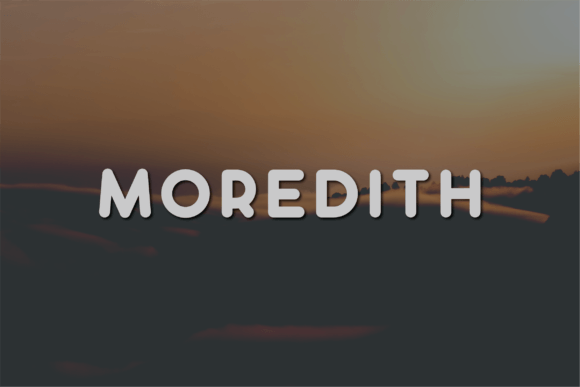
Journey through a realm of typographic wonder with Moredith, the font that captivates and enchants. Immerse yourself in its graceful curves and crisp lines, a symphony of elegance and charm. Moredith's sans serif architecture exudes a timeless sophistication, effortlessly blending tradition with contemporary flair.
Picture your designs adorned with Moredith's allure, be it logos that command attention or wedding invitations that whisper romance. Witness how effortlessly it elevates quotes, advertisements, and print, transforming them into works of art. Moredith graces magazines with its refined presence, leaving an indelible mark on every page.
Moredith is a font that is a perfect fusion of versatility and distinctiveness. Its carefully crafted letterforms dance across the screen, captivating audiences with their rhythmic flow. Whether you're crafting a logo that demands attention or a website that exudes elegance, Moredith is your maestro, orchestrating a visual masterpiece.
Behind the brilliance of Moredith lies the visionary mind of A Christie, a font artisan who poured passion and creativity into every stroke. With meticulous attention to detail, Christie breathed life into Moredith, imbuing it with a personality that shines through in every design.